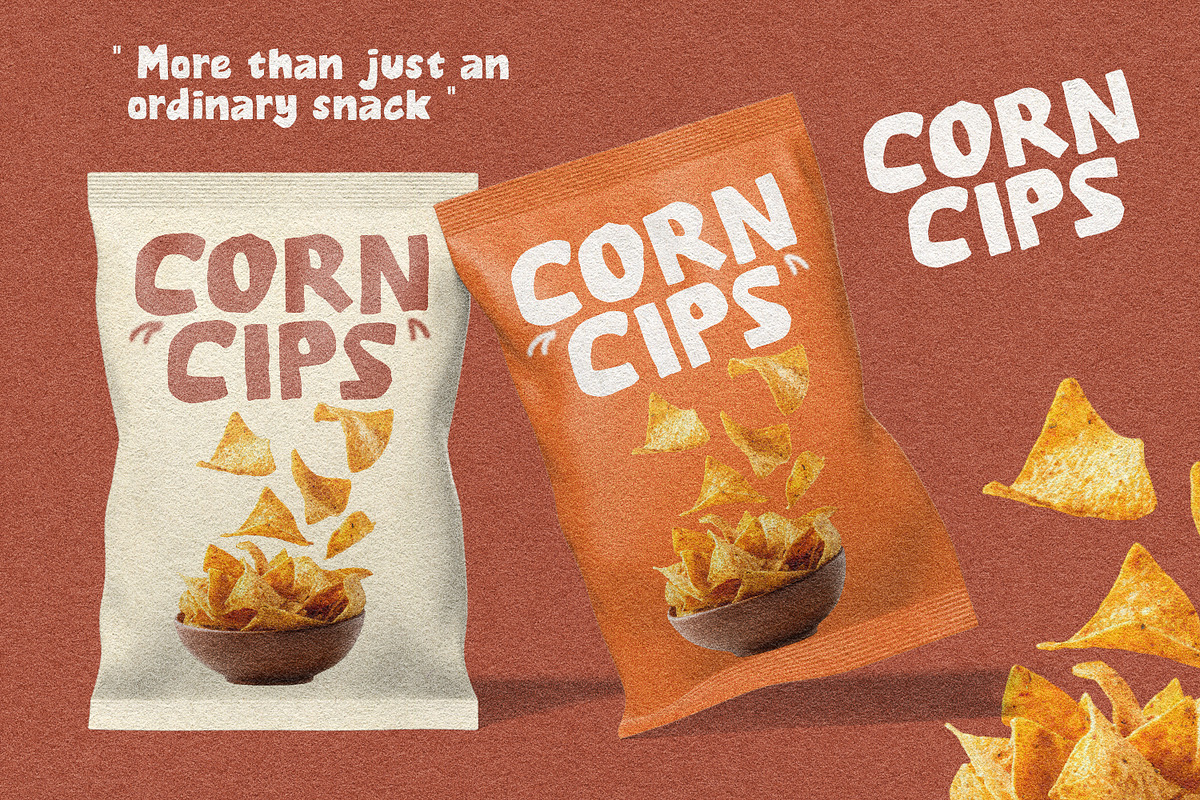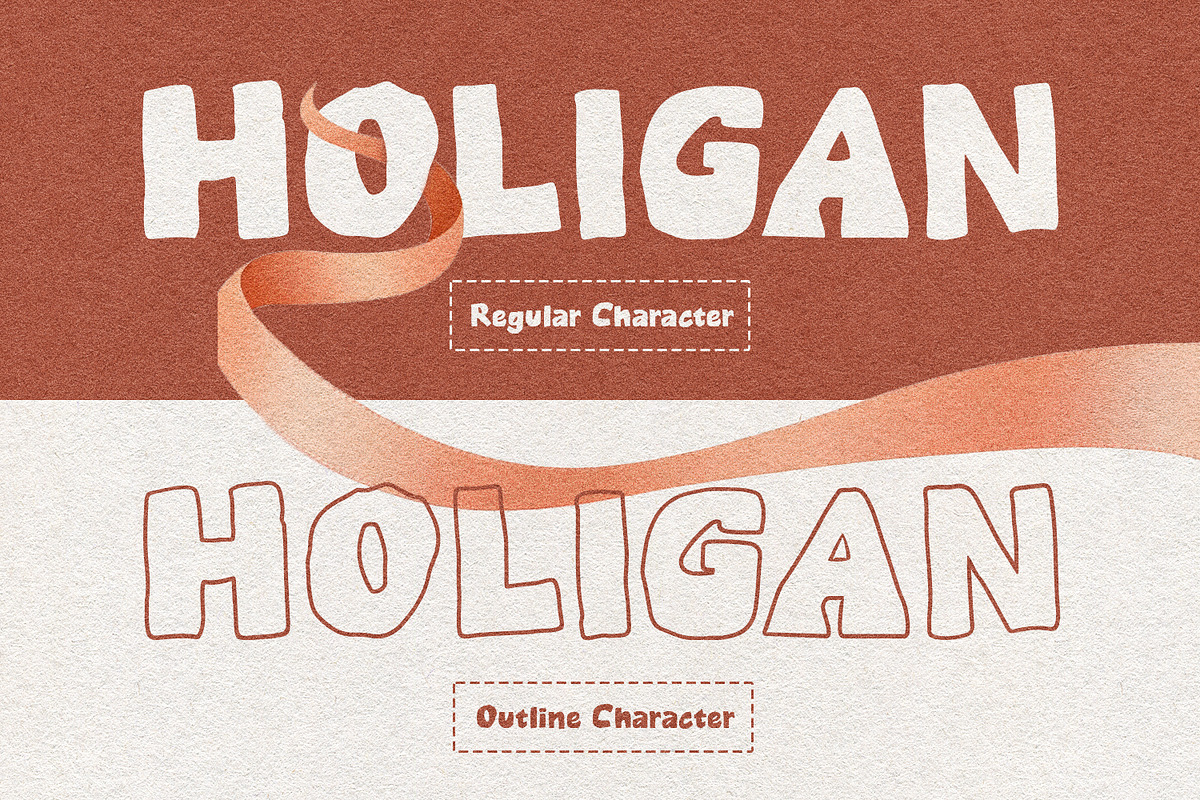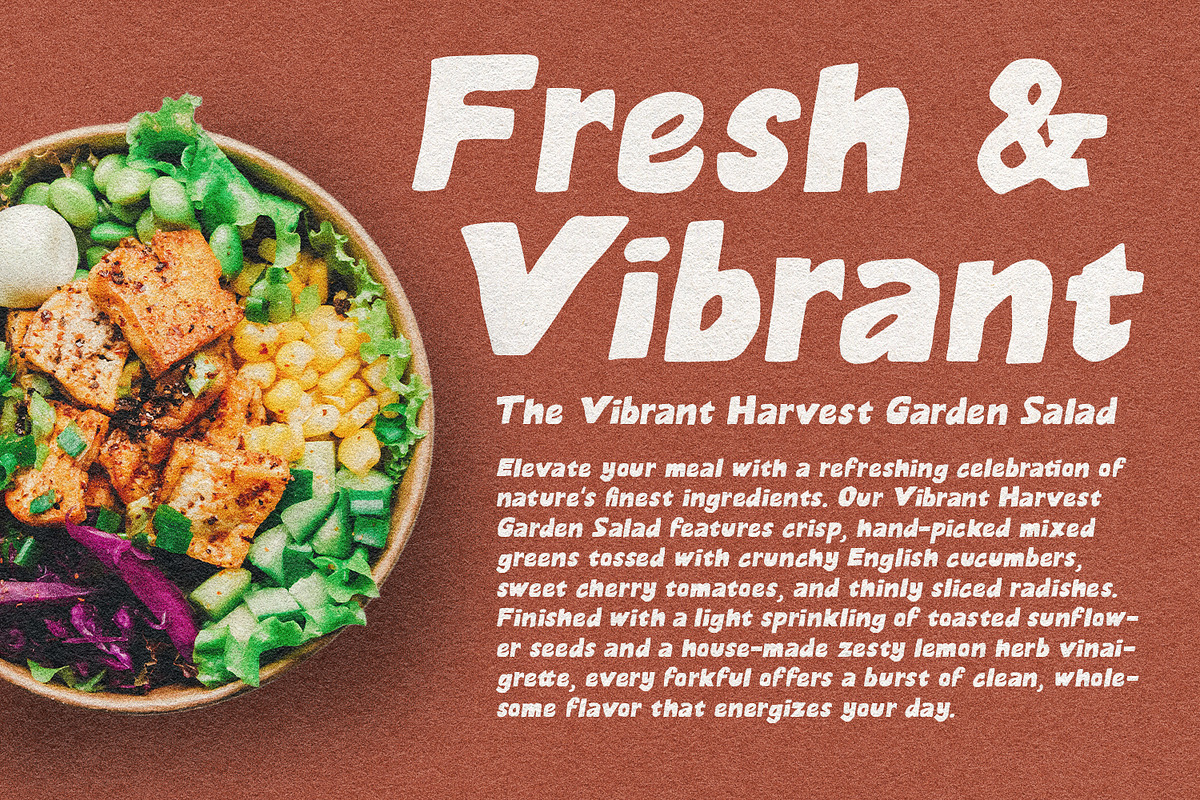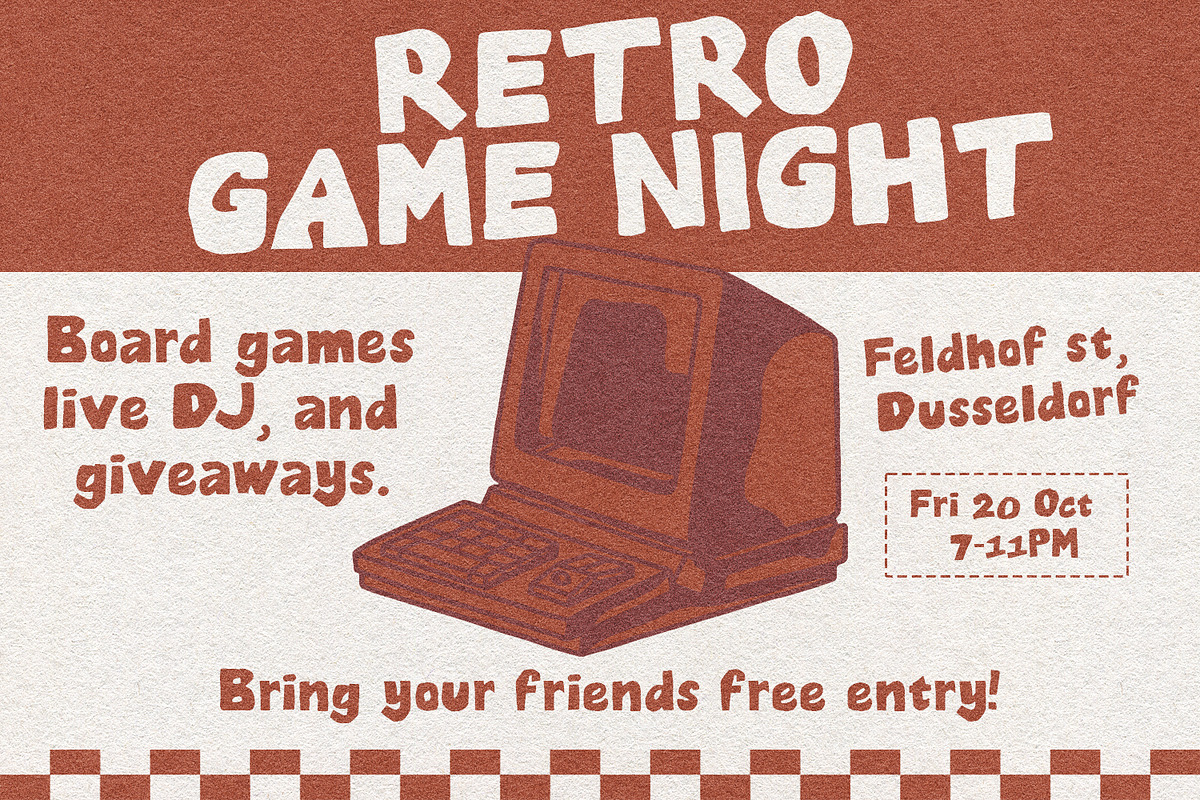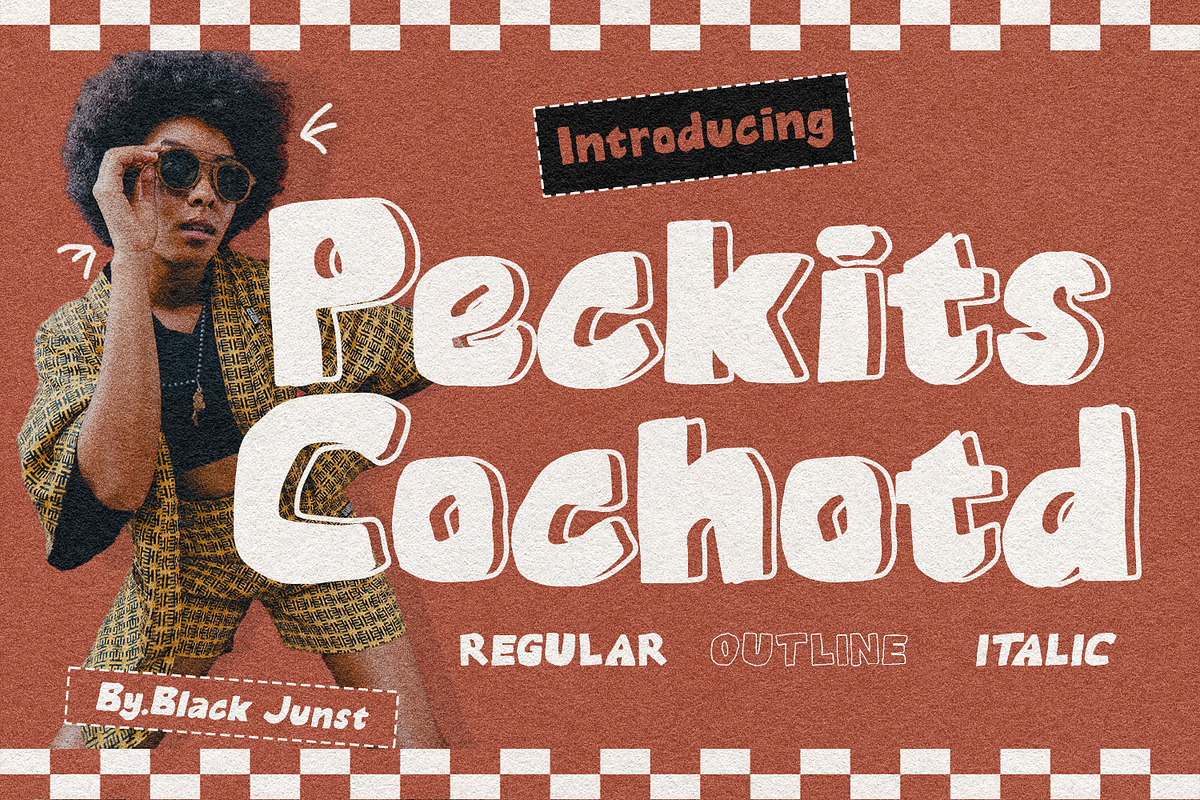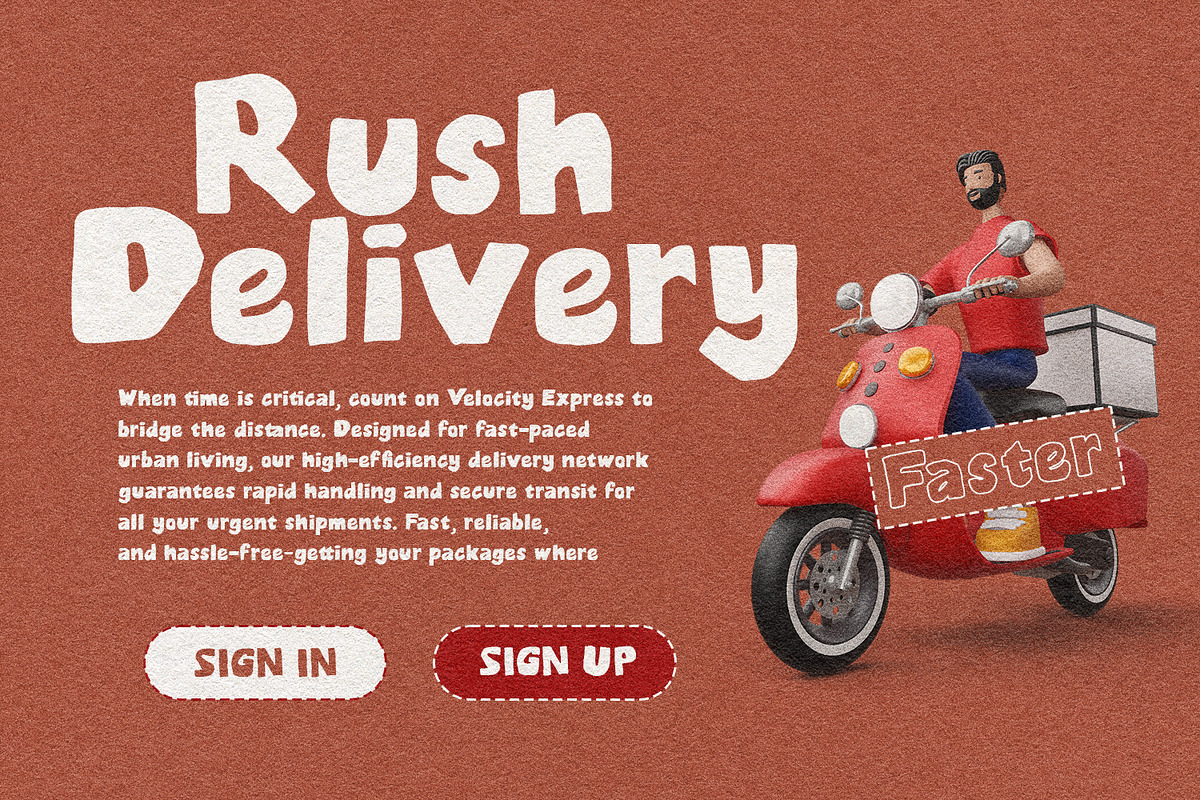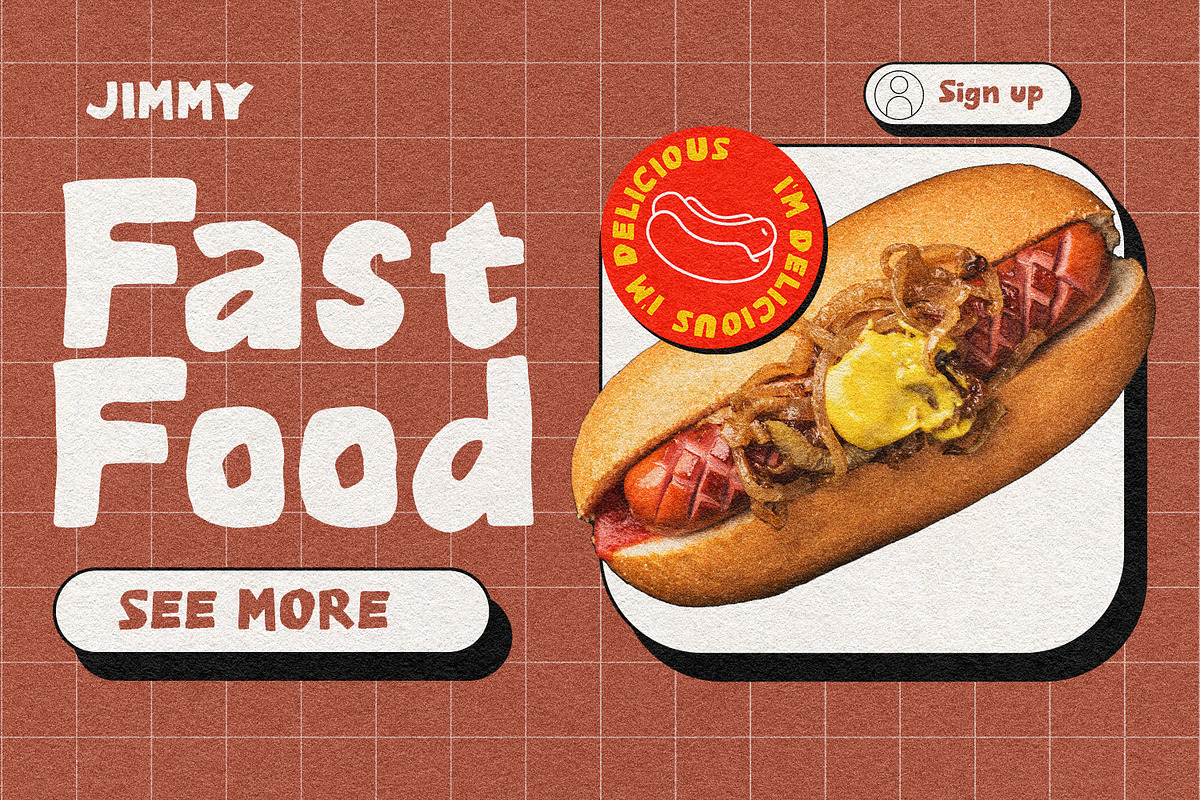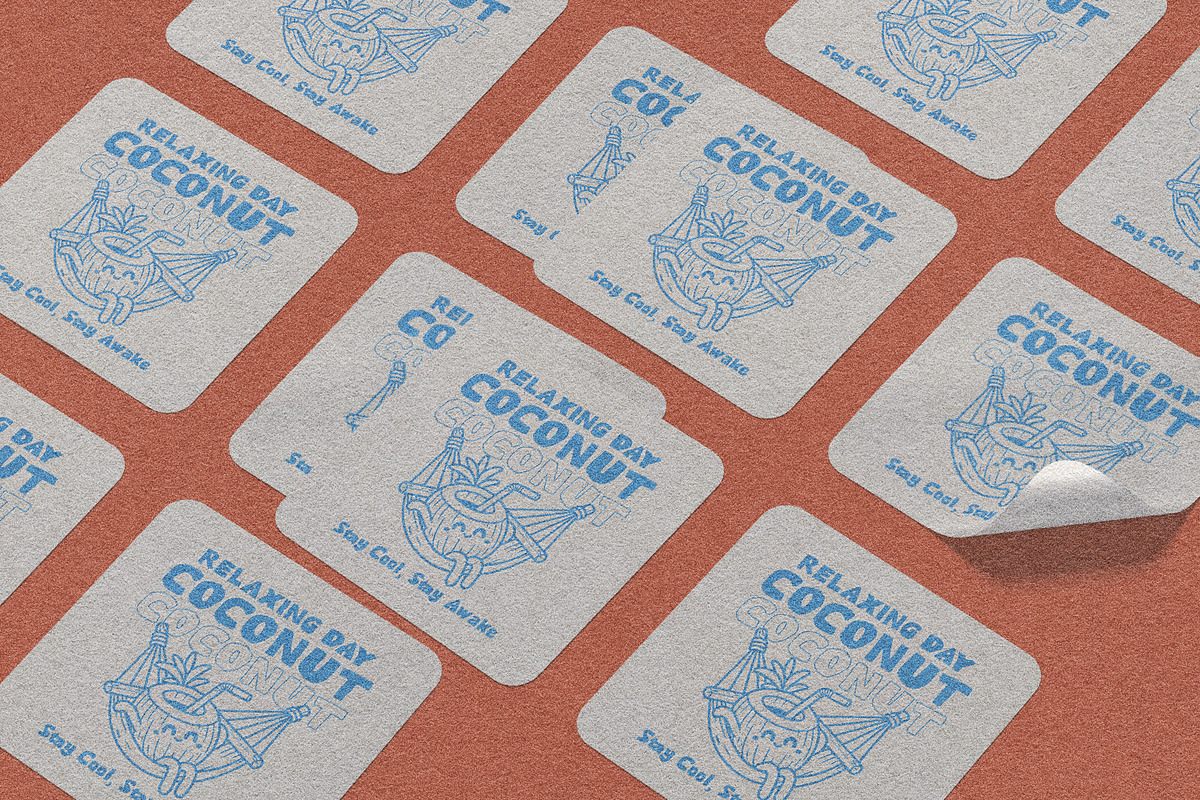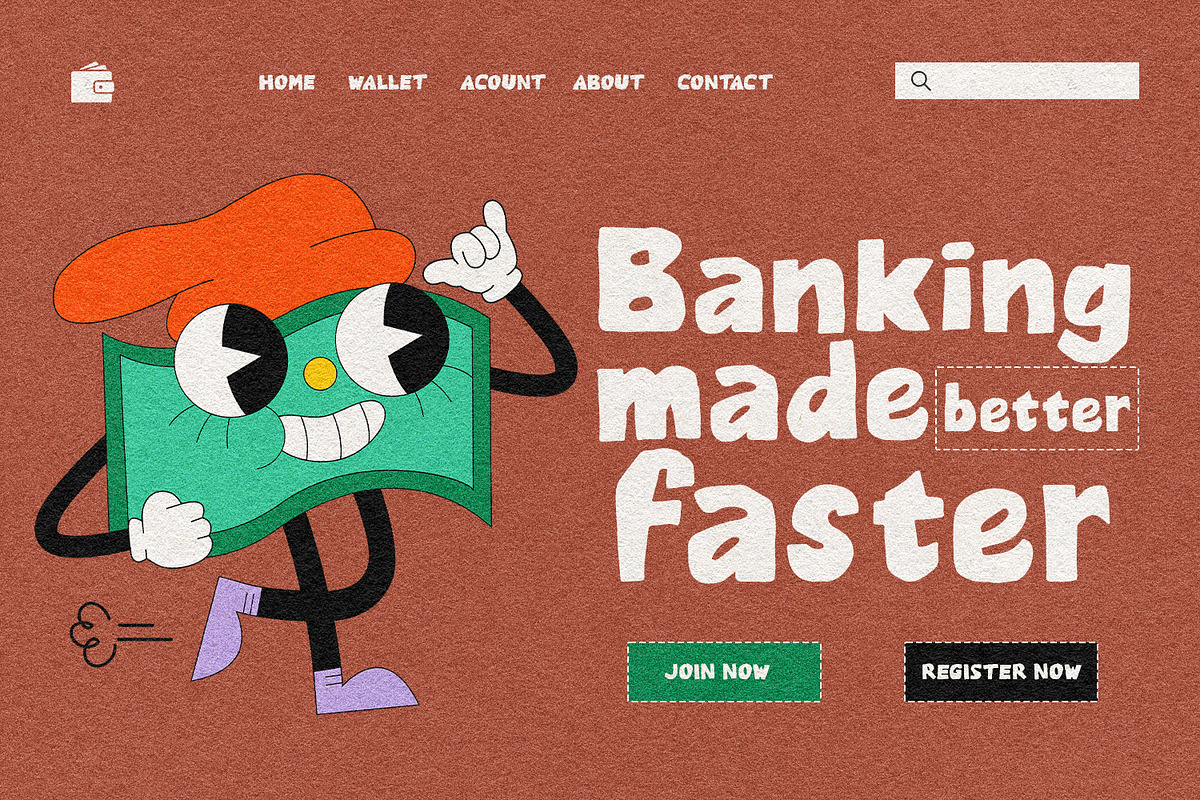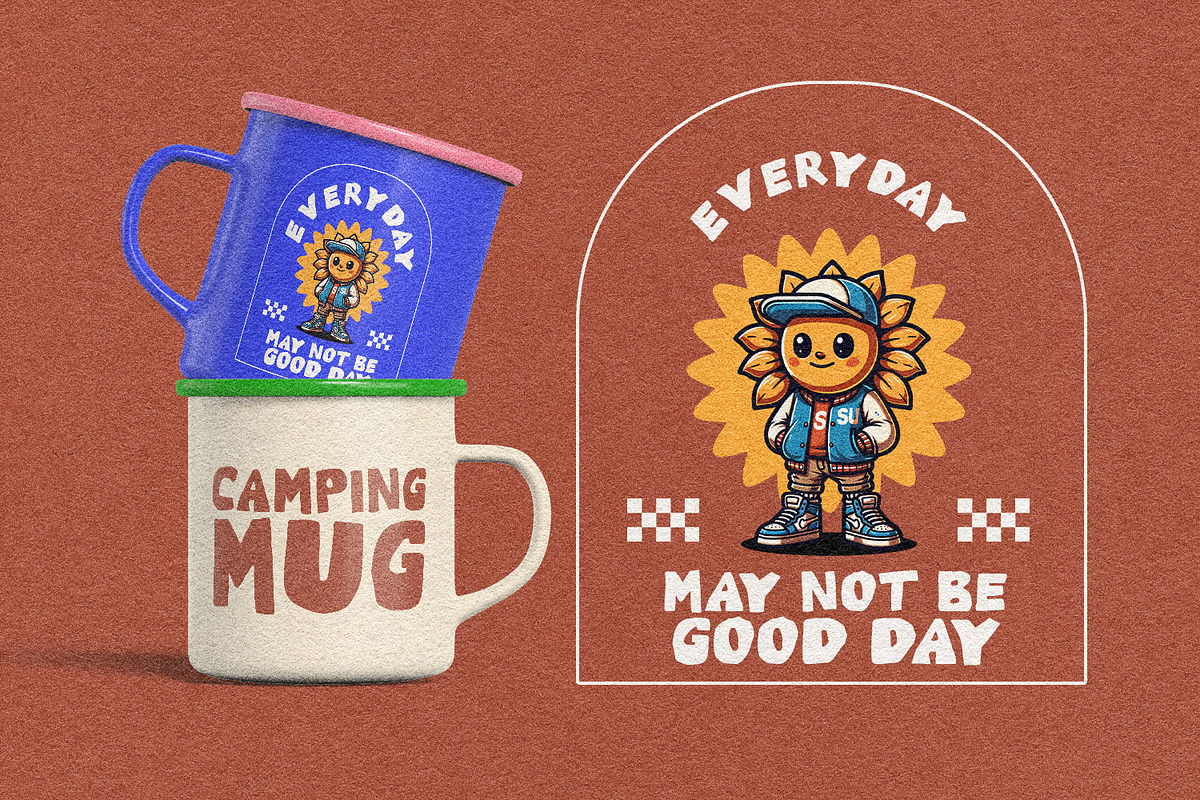
Peckits Cochotd
Peckits Cochotd is a handmade display font featuring chunky bubble letterforms with a playful handcrafted personality. Carefully drawn by hand, this font combines retro charm, organic curves, and bold character, making every design feel warm, unique, and memorable.
Designed with three versatile styles—Regular, Italic, and Outline—Peckits Cochotd gives designers the flexibility to create eye-catching typography for logos, packaging, posters, apparel, branding, stickers, social media graphics, children's products, and creative merchandise.
Its imperfect handmade details create an authentic handcrafted look that works beautifully for modern brands looking for something friendly, fun, and full of personality.
Food Packaging
Snack Branding
Beverage Labels
Children's Products
Café Branding
Toy Packaging
Retro Posters
Apparel & Streetwear
YouTube Thumbnails
Greeting Cards
Stickers
Craft Projects
Creative Branding
Vintage Packaging
Regular Style
Italic Style
Outline Style
Handmade Lettering
Peckits Cochotd is the perfect handmade display font for designers who want bold typography with an organic handcrafted feel that instantly attracts attention.